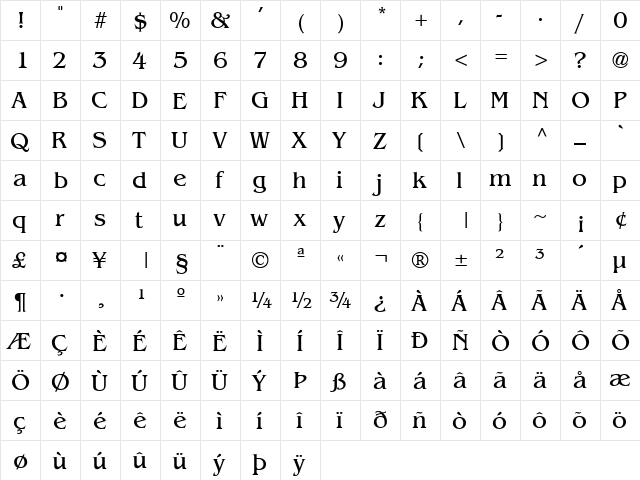
Bangkok Regular
Design Context for Bangkok Typeface
Bangkok is a composed and adaptable typeface that performs quietly and consistently across a wide range of design contexts.